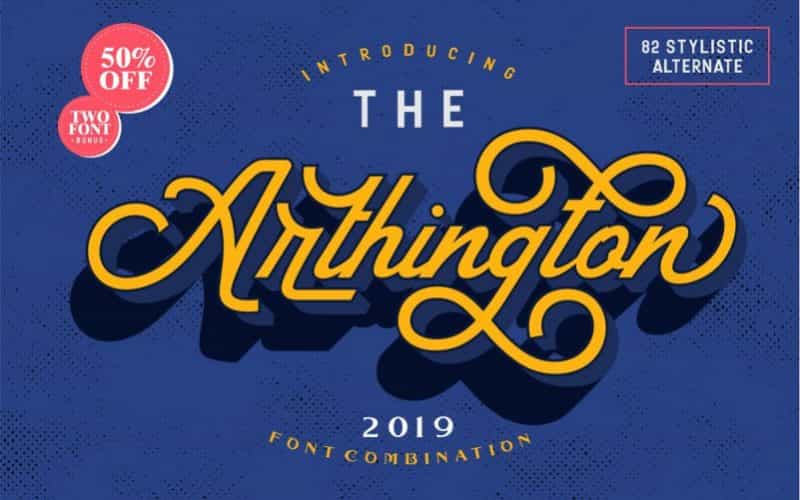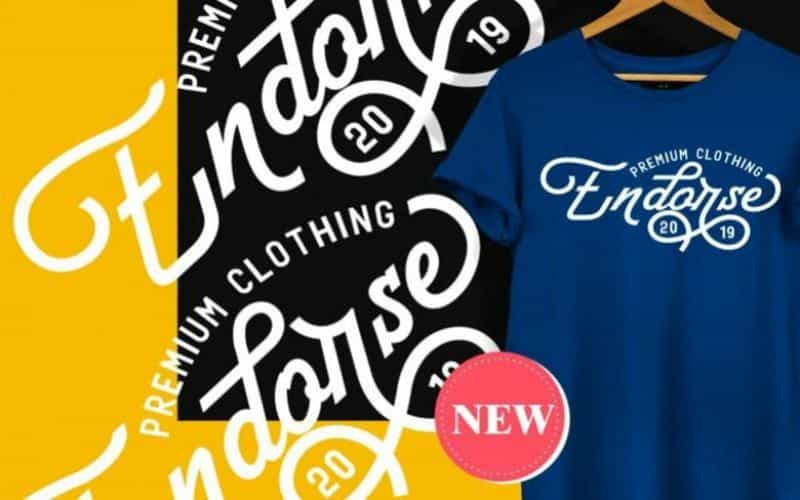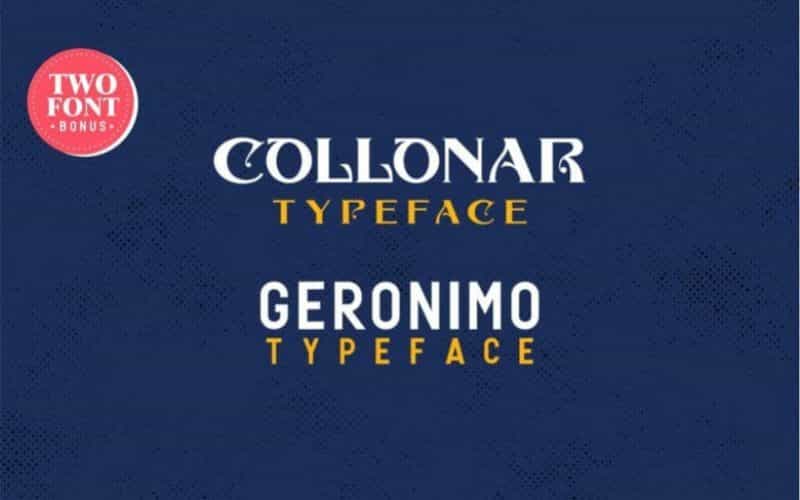
Arthington is Combination Font With 82 Stylistic Altrenate and 2 font Bonus Collonar typeface and Geronimo typeface. Arthington Suitable for : designs logo,Branding,title,t-shirt design,typhography,magazine,book, or antyhing do you want. arthington font combination come with vintage taste. It’s recommended to use it in opentype capable software because, This font already uses a- z lowercase alternate,ligature. swash with PUA encode,